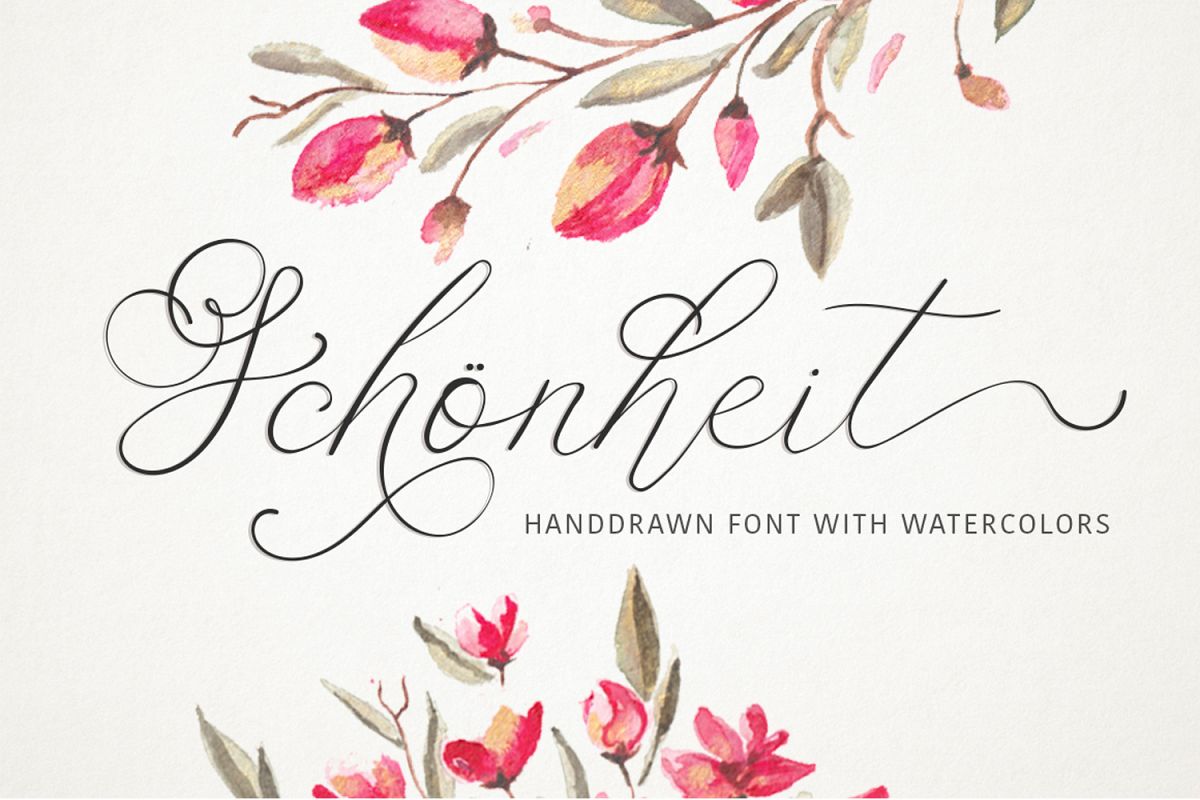
Schonheit font & watercolors.
Schonheit is a beautiful script font with gentle character. Schonheit in translation from German means beautiful woman. And this font is really beautiful, in which every glyph is thought out with German pedantry. Gentle calligraphy and lots of OpenType features make this font an unique tool for creating handdrawn texts, which are written by hand.
Uppercase letters have amazing swashes, lowercase letters have 3 stylistic alternates, as well as initial and final letters for all lowercase glyphs. Double letters ligatures are also included.
It's very easy to get lowercase alternative glyphs:
• just type the number (1......3) after any letter. So, you can forget about the Glyphs panel and have fun and great results just type numbers after letters. Scroll down and use preview window for testing.
• Fonts include multilingual support. Western European, Central European and South Eastern European languages are included.
Bonus - 14 beautiful watercolor handdrawn flowers & textures.